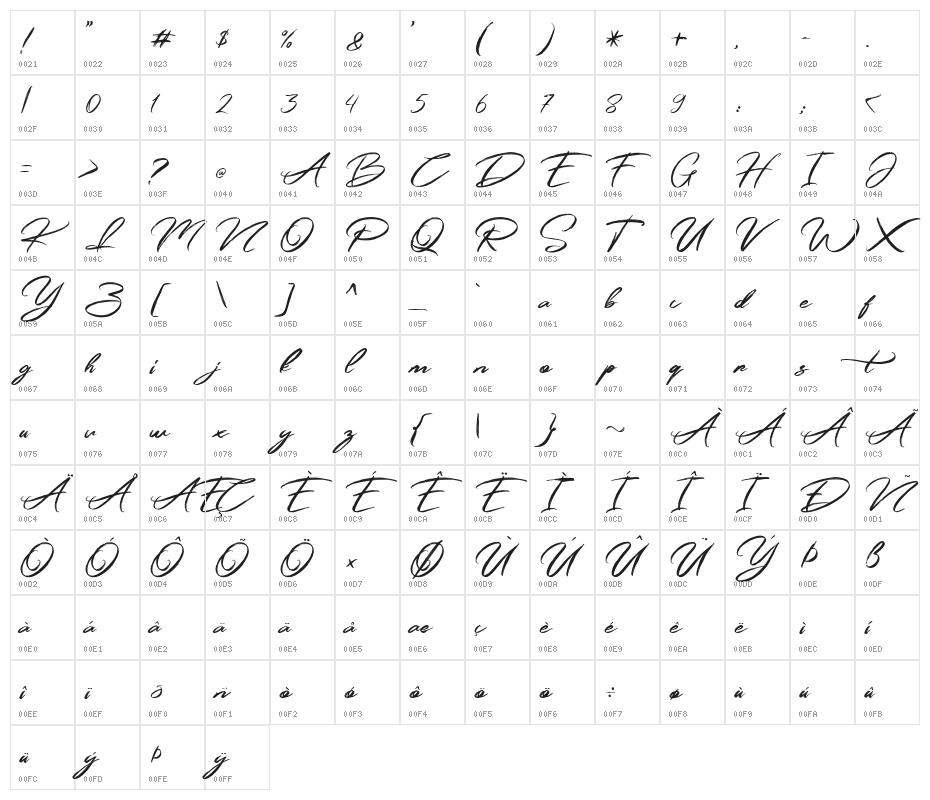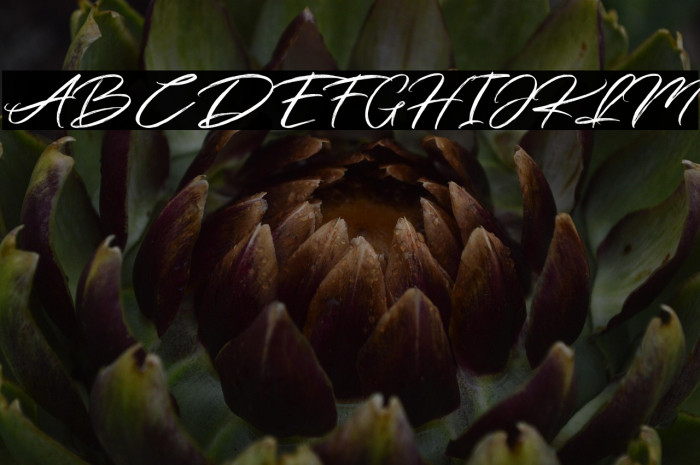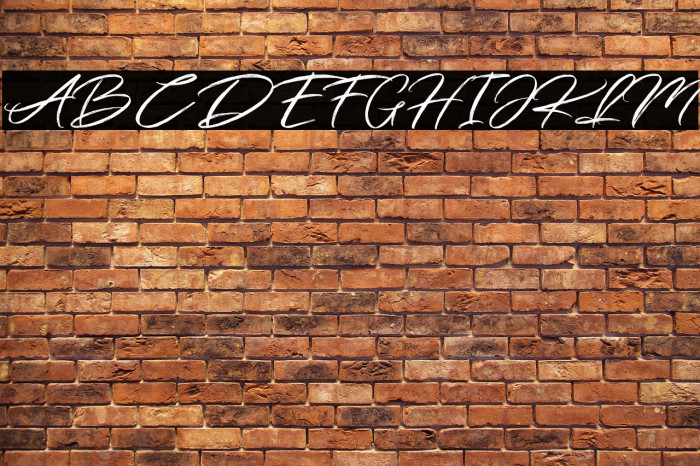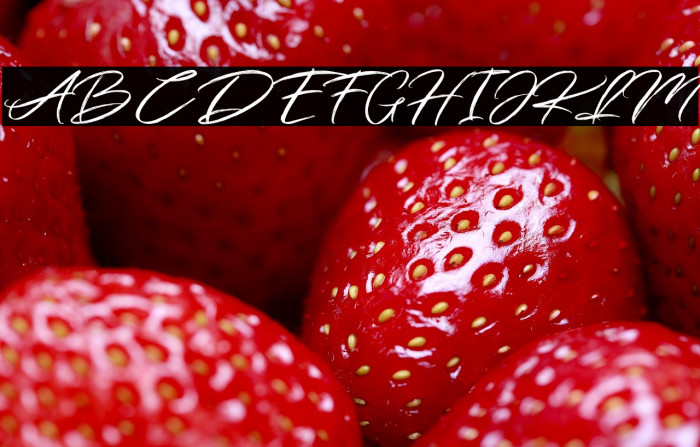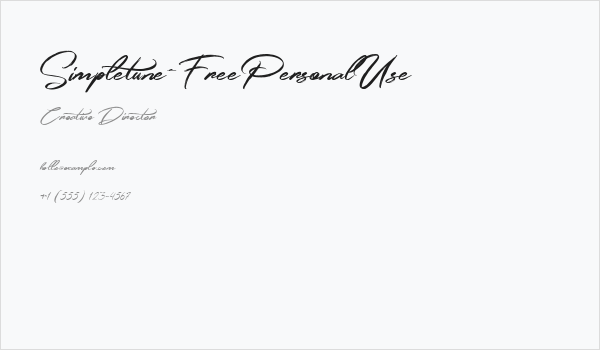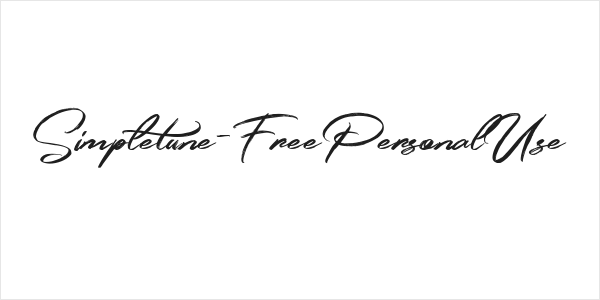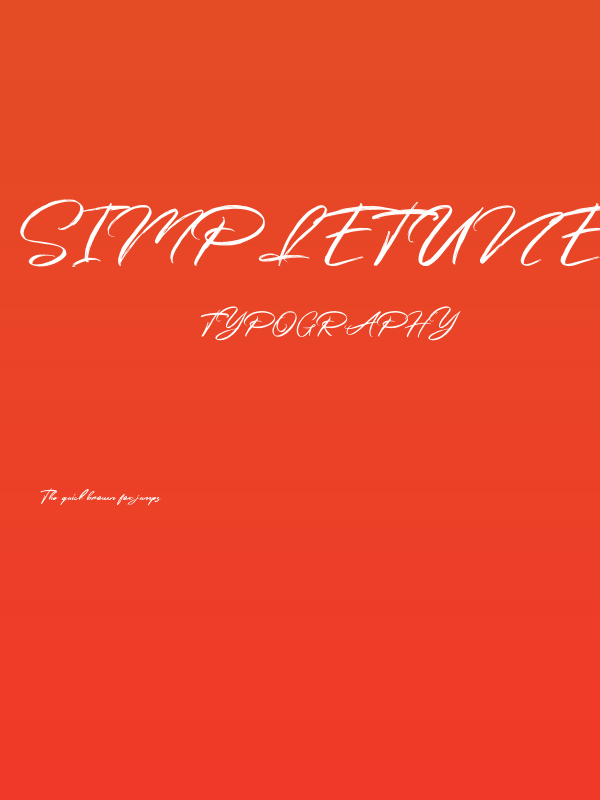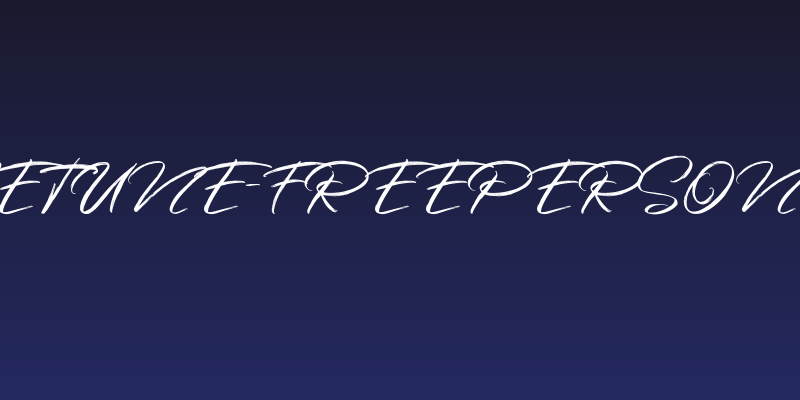
Simpletune-FreePersonalUse Font
Simpletune-FreePersonalUse Description
This font exudes a dynamic and elegant script style, characterized by its fluid and cursive letterforms. The uppercase letters are gracefully elongated with sweeping curves, while the lowercase letters maintain a consistent flow, enhancing readability. The numerals are distinct and maintain the script's fluidity. Special characters are creatively integrated, adding a touch of sophistication. The overall design is reminiscent of classic calligraphy, making it suitable for projects that require a personal and artistic touch.